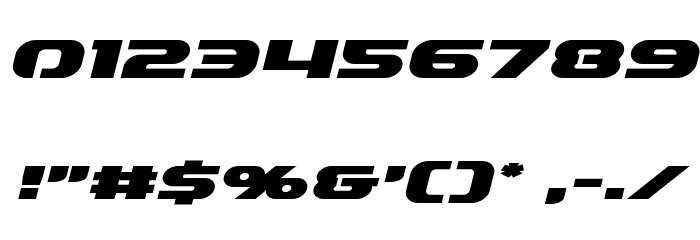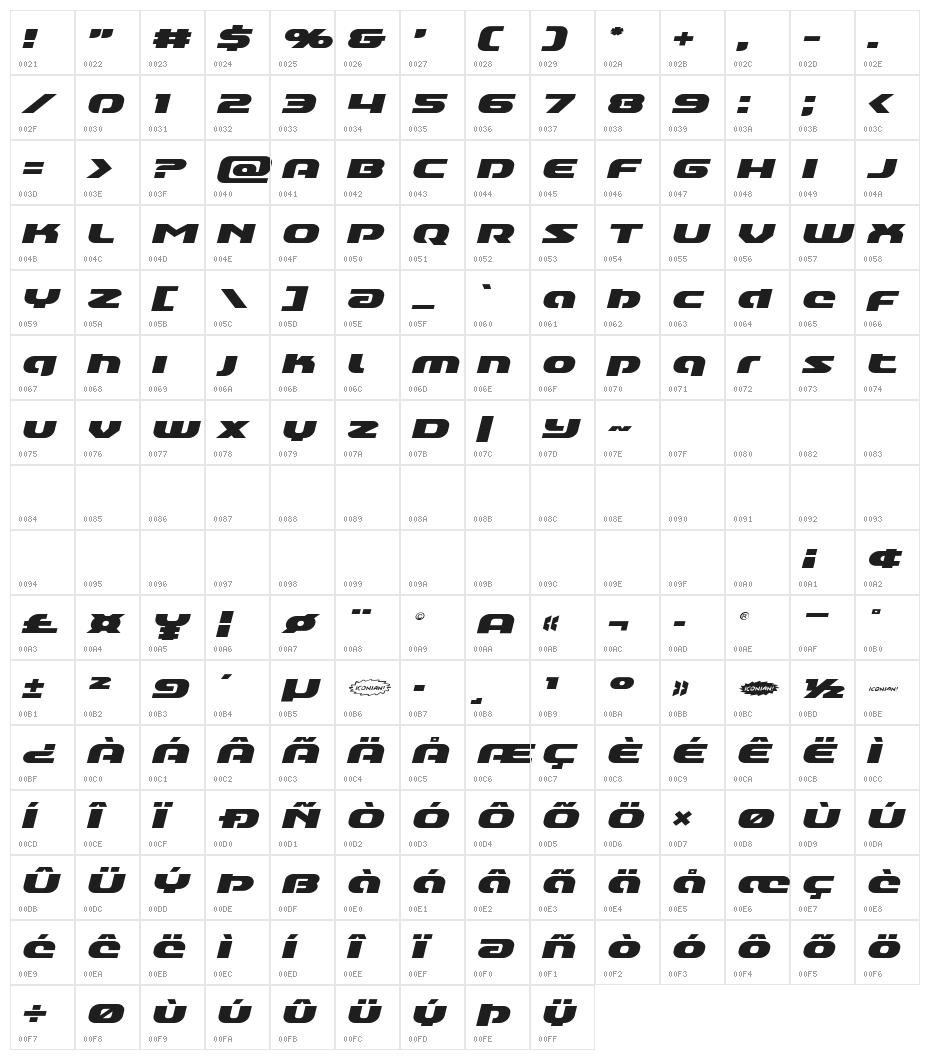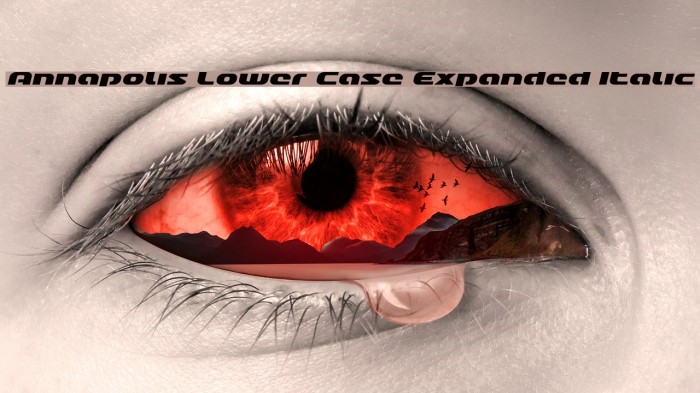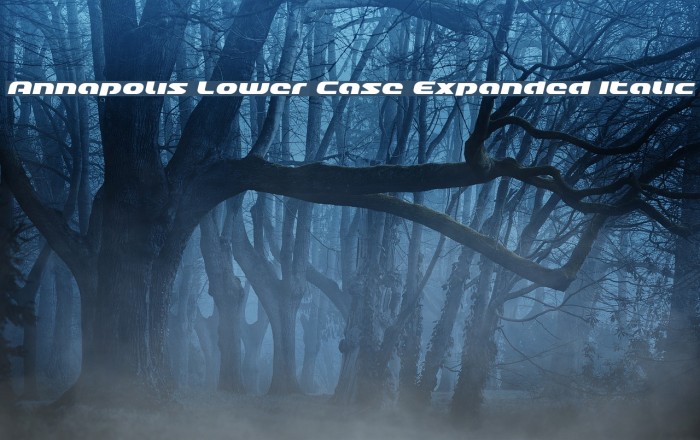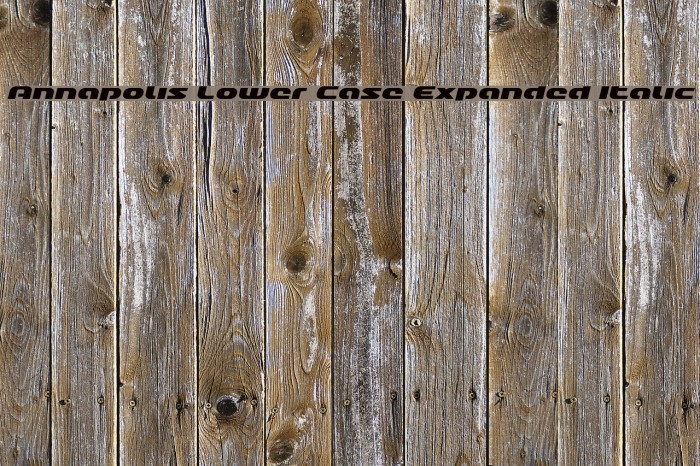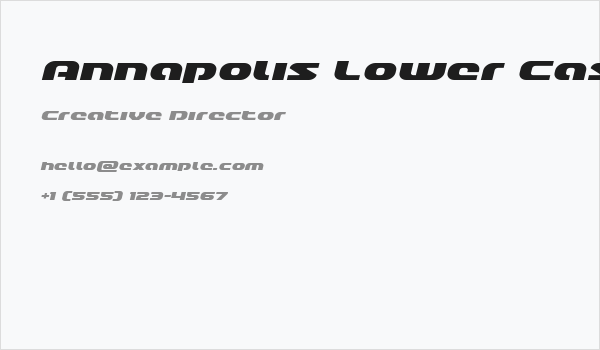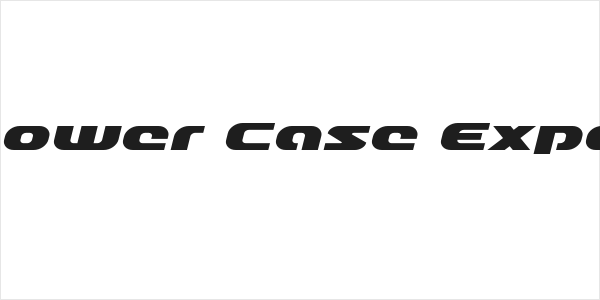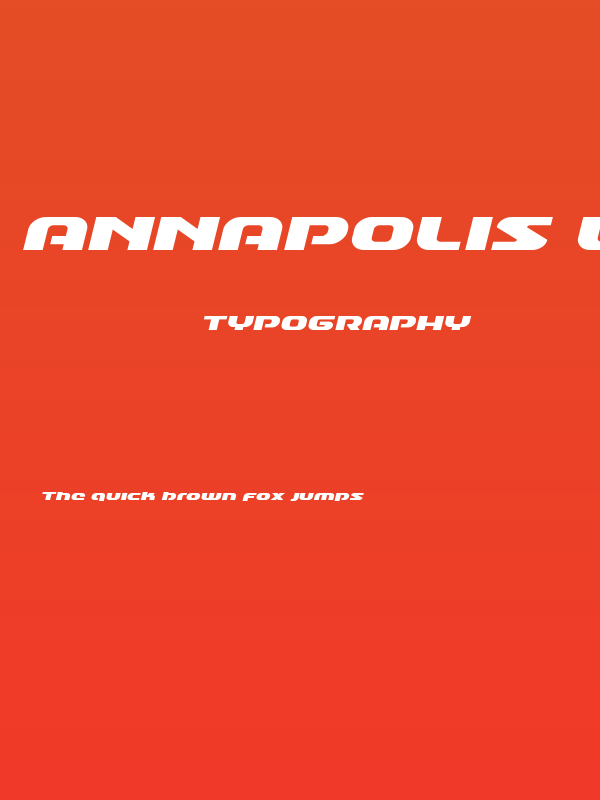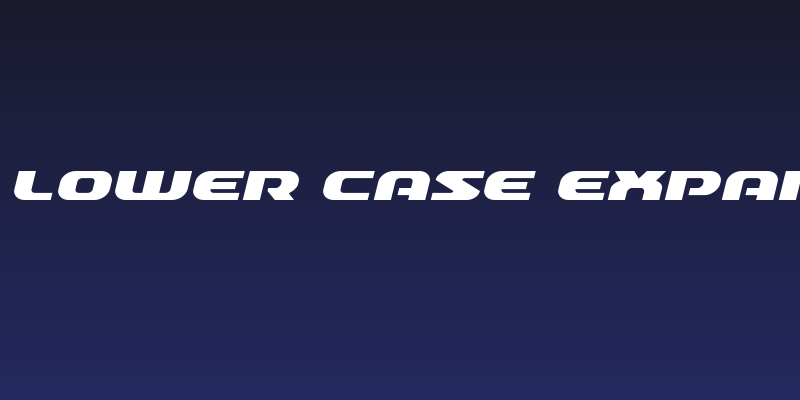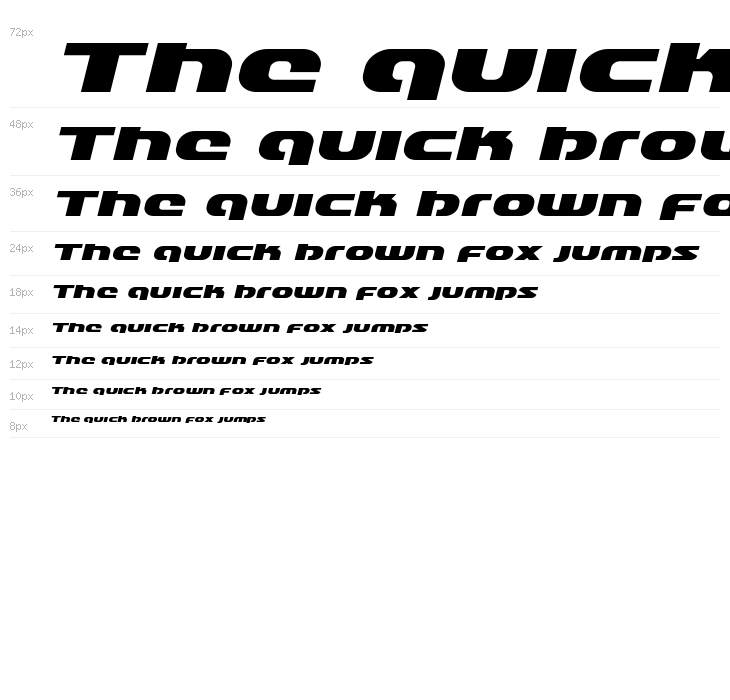
Annapolis Lower Case Expanded Italic Font
Annapolis Lower Case Expanded Italic Description
This font features a bold and dynamic style with a distinct italic slant, giving it a sense of motion and energy. The characters are expanded, providing a wide and spacious appearance that enhances readability while maintaining a modern aesthetic. The strokes are thick and consistent, contributing to a strong visual impact. The design is sleek and contemporary, making it suitable for various creative applications. The special characters are well-integrated, maintaining the overall style and ensuring versatility in usage.
| Proposed Projects | Ideal for branding, advertising, sports team logos, and dynamic headlines. |